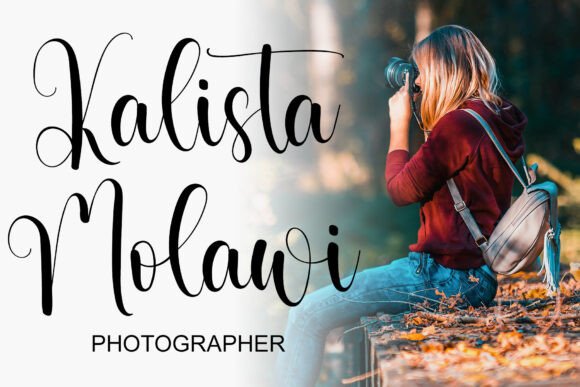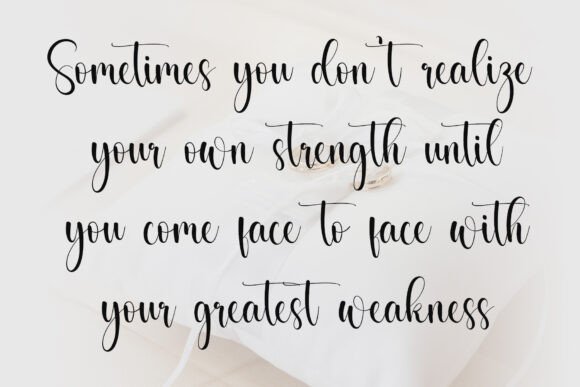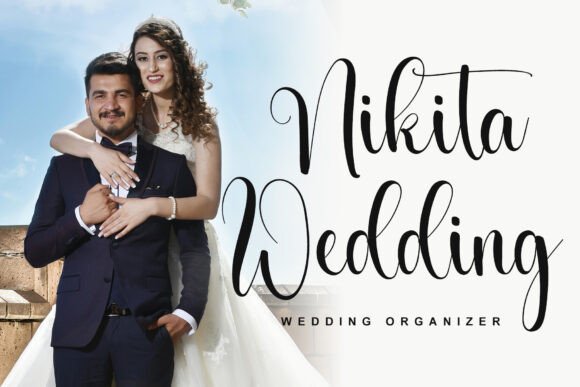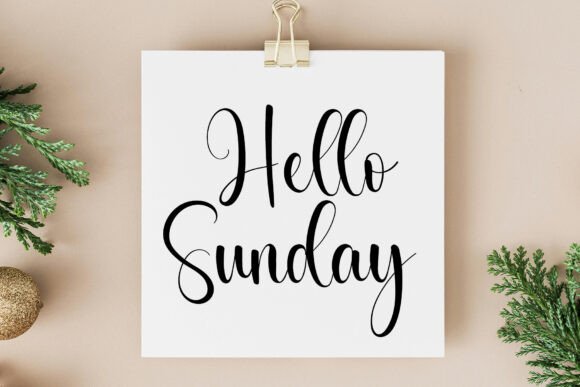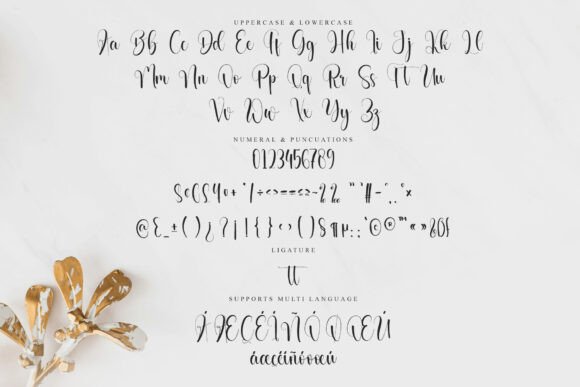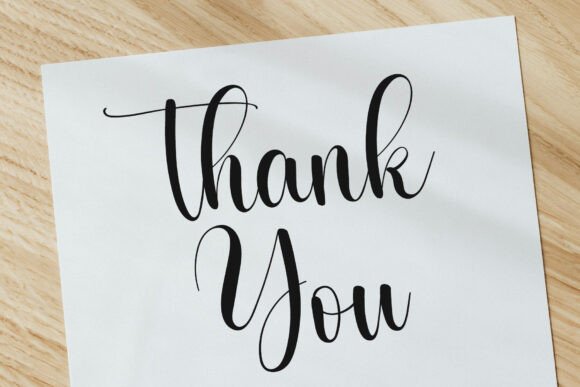
Introducing Frisky Font: Add a Touch of Holiday Magic to Your Designs
Are you looking for a font that embodies the spirit of the holiday season? Look no further than Frisky Font, a festive and playful typeface that’s sure to bring joy and whimsy to your Christmas cards, decorations, and more. With its enchanting swashes and PUA encoding, Frisky Font is the perfect addition to any designer’s toolkit.
What is Frisky Font?
Frisky Font is a unique and charming typeface that’s specifically designed to capture the magic of the holiday season. Its playful and festive design makes it ideal for use in a variety of applications, from Christmas cards and invitations to decorations and holiday-themed crafts.
One of the standout features of Frisky Font is its use of enchanting swashes, which add a touch of elegance and sophistication to any design. These swashes can be used to create beautiful and intricate designs, making Frisky Font a versatile and valuable addition to any designer’s collection.
PUA Encoding: Easy Access to Glyphs and Ligatures
Frisky Font is PUA (Private Use Area) encoded, which means that you can access all of the amazing glyphs and ligatures with ease. PUA encoding allows designers to access a wide range of special characters and glyphs that can be used to add visual interest and personality to their designs.
With Frisky Font, you can easily access a variety of alternative characters, ligatures, and swashes, making it easy to create unique and eye-catching designs. Whether you’re a professional designer or a crafty DIY enthusiast, Frisky Font’s PUA encoding makes it easy to get the most out of this beautiful font.
Uses for Frisky Font
Frisky Font is a versatile typeface that can be used in a wide range of applications, including:
- Christmas cards and invitations
- Holiday decorations and signs
- DIY crafts and projects
- Digital designs, such as social media graphics and blog posts
- Print-on-demand products, such as t-shirts and mugs
Whether you’re looking to create a festive and fun design or a more elegant and sophisticated one, Frisky Font is the perfect choice.
Tips for Using Frisky Font
Here are a few tips for getting the most out of Frisky Font:
- Experiment with different swashes and glyphs to add visual interest to your designs
- Use Frisky Font in combination with other fonts to create a unique and eye-catching design
- Don’t be afraid to get creative and try out new and unusual design ideas
- Take advantage of Frisky Font’s PUA encoding to access a wide range of special characters and glyphs
Frisky Font is a beautiful and versatile typeface that’s perfect for adding a touch of holiday magic to your designs. With its enchanting swashes, PUA encoding, and wide range of uses, Frisky Font is a valuable addition to any designer’s toolkit.